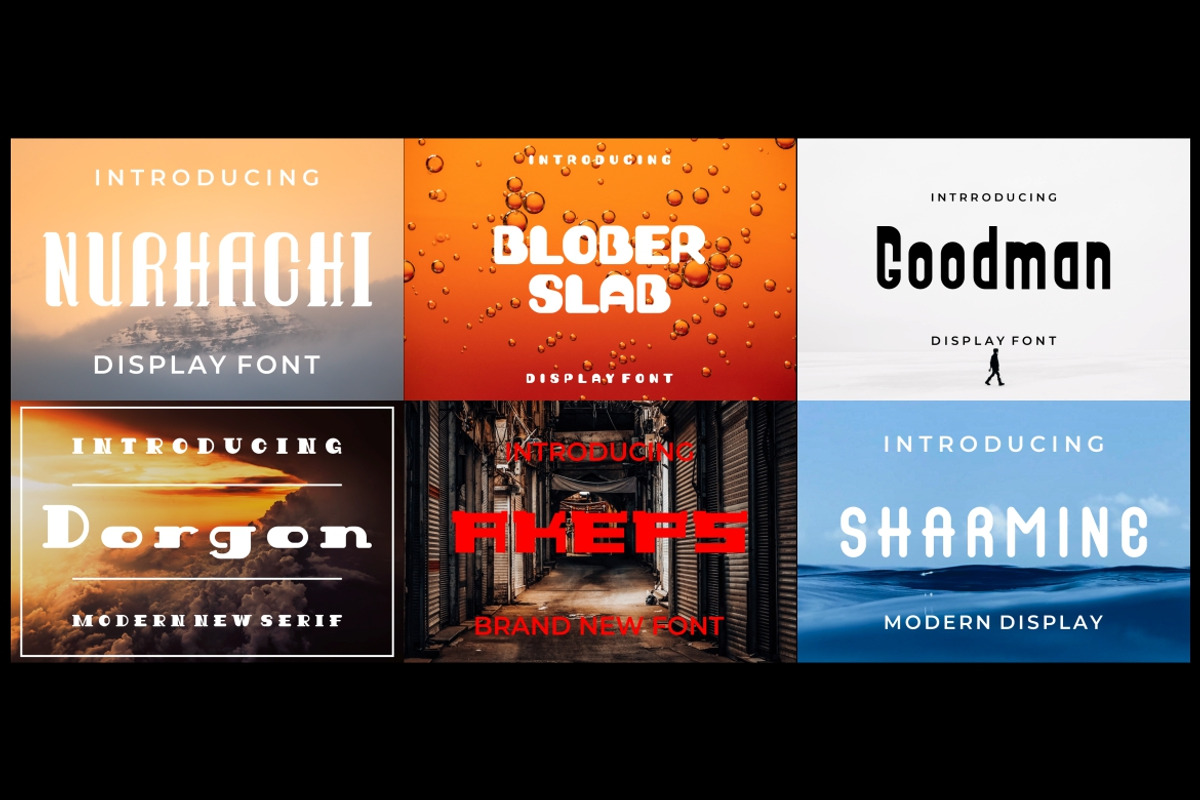
Bundle Font Display
Introducing our new product Bundle Font Display - Modern Font
Bundle Font Display - Modern Font is a bold and authentic display font. The font is suitable for any branding project like logo, t-shirt printing, esport, and many more. outstanding in a wide range of contexts.